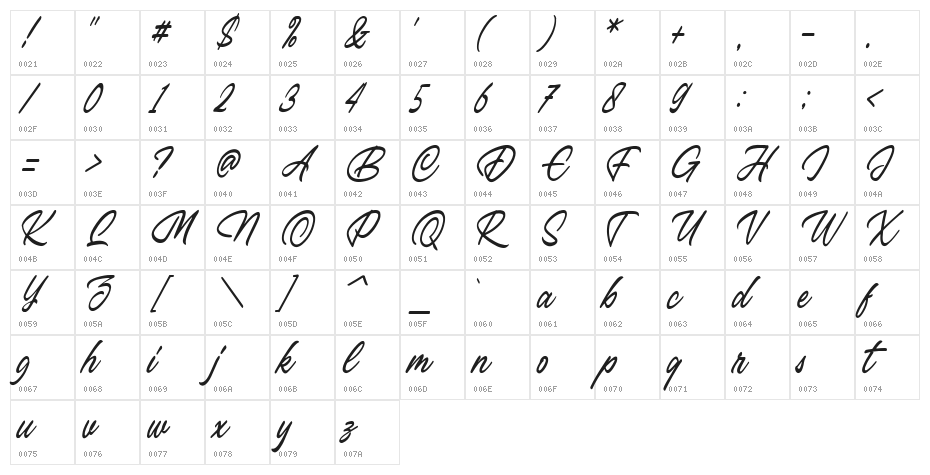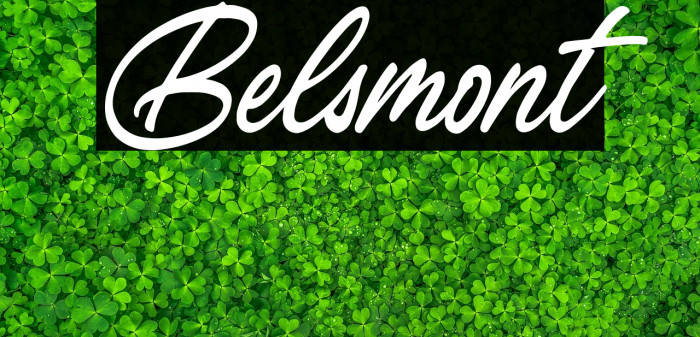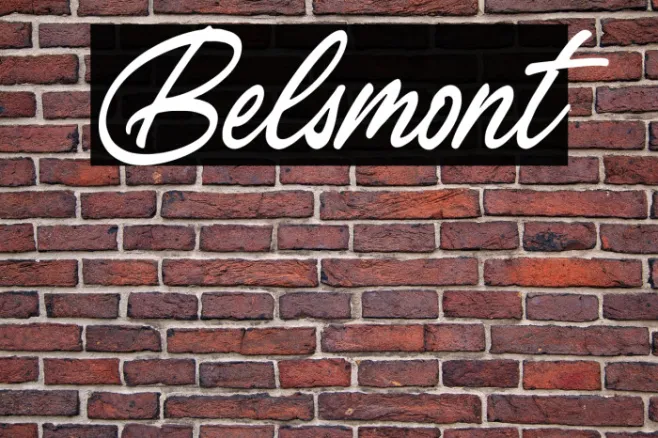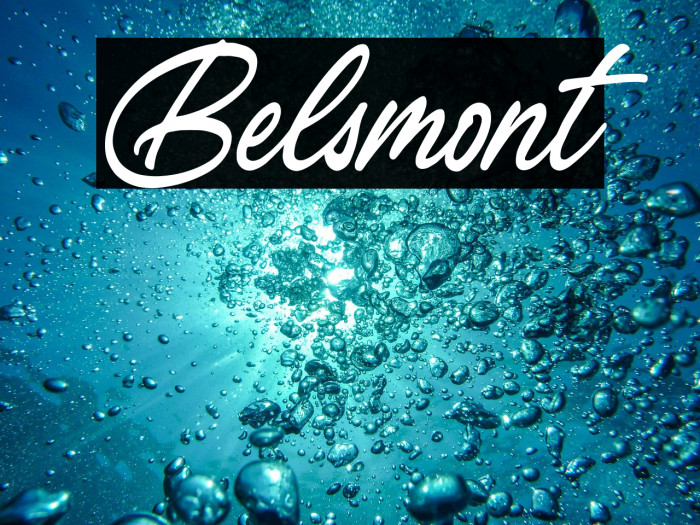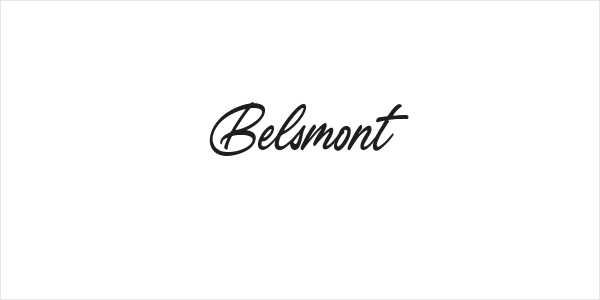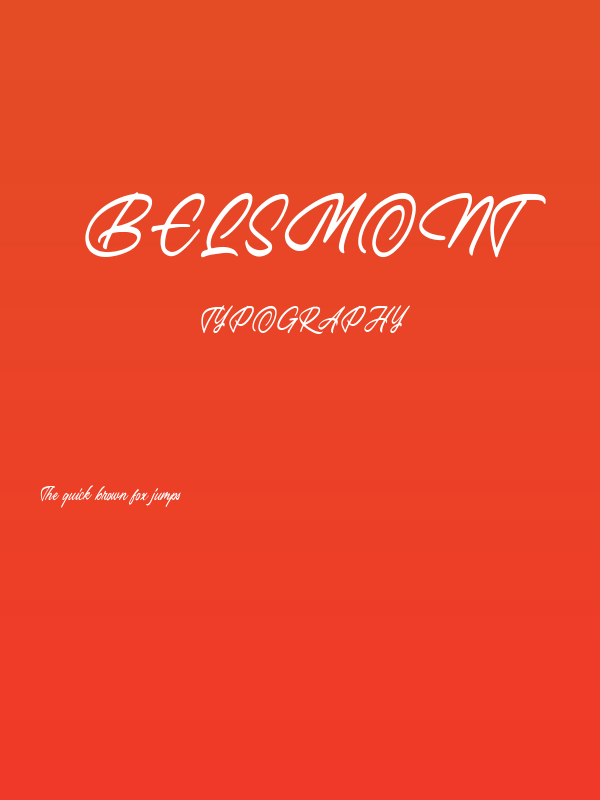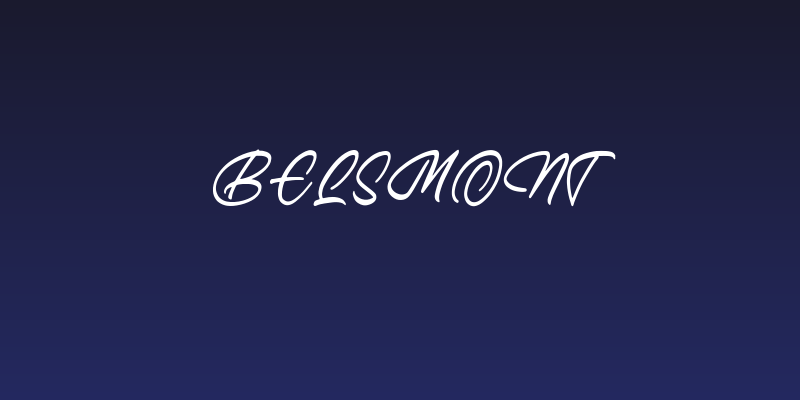
Belsmont Font
Belsmont Description
This font features a dynamic and flowing script style, characterized by its elegant and cursive letterforms. The uppercase letters exhibit a sophisticated flair with sweeping curves and loops, while the lowercase letters maintain a consistent rhythm and fluidity. The numerals are designed to complement the script style, offering a cohesive look across all characters. Special characters are seamlessly integrated, maintaining the overall aesthetic. The font's design is reminiscent of traditional calligraphy, yet it retains a modern touch, making it versatile for various applications.
| Proposed Projects | Ideal for wedding invitations, branding, greeting cards, and elegant packaging designs. |